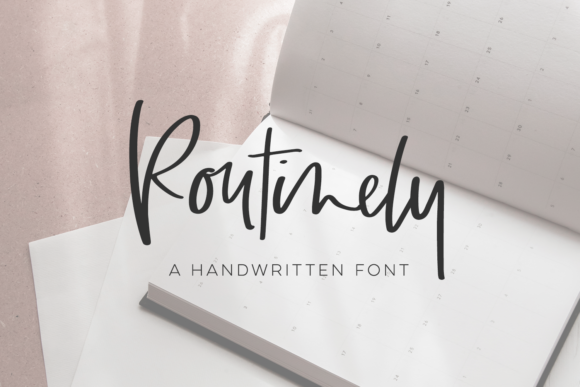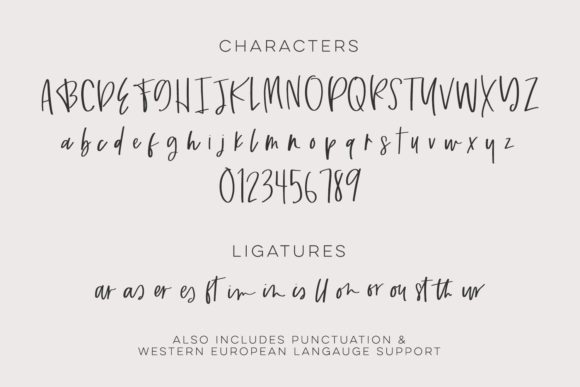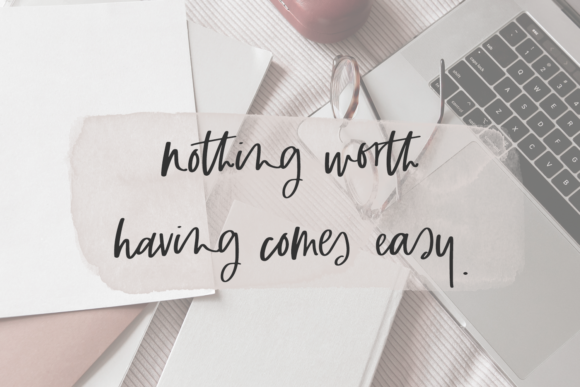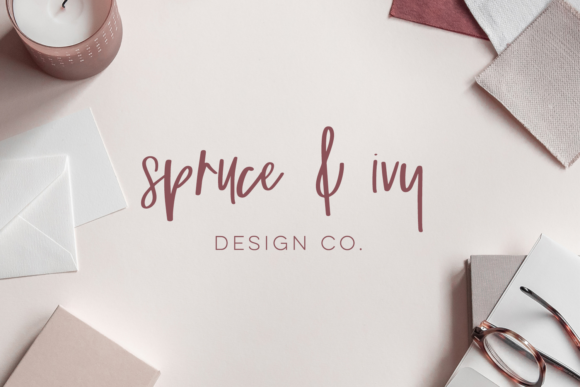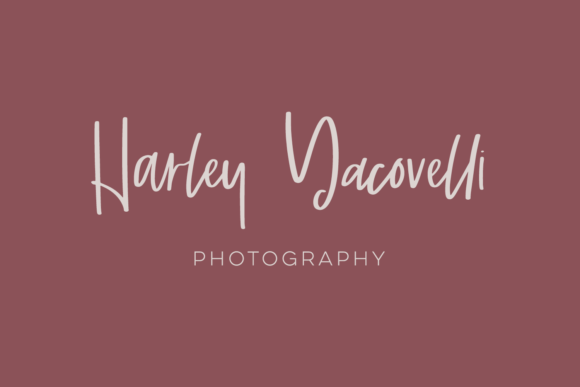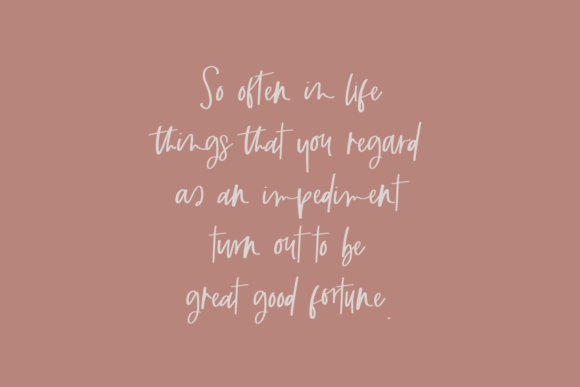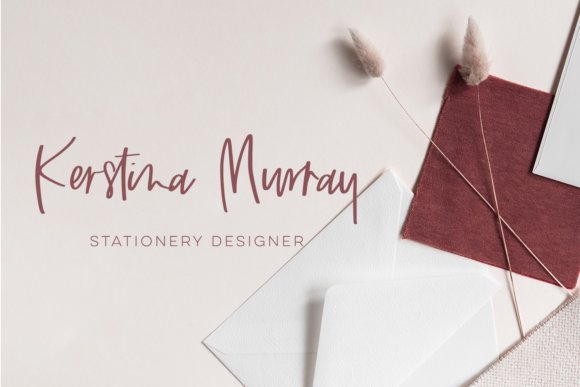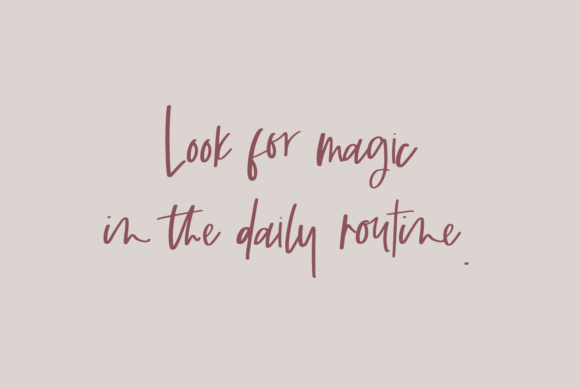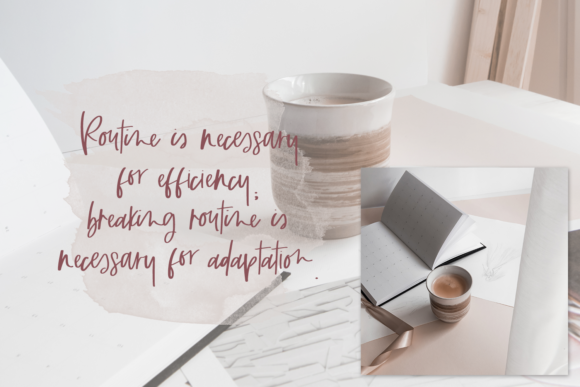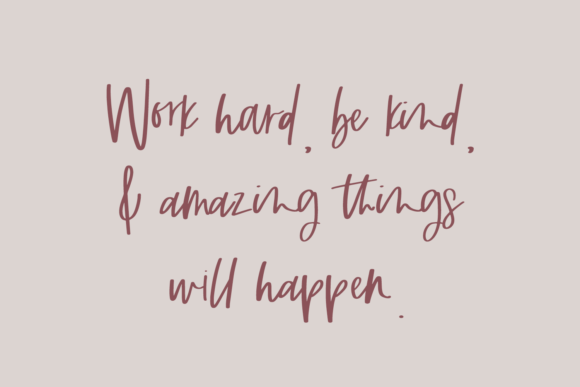
Routinely Script Font
About Routinely Script Font
Routinely Script is a handwritten signature style font. This stylish font features a messy, casual look.
Routinely Script is best for:
– logos + branding
– website design + website accents – think design blogs, travel blogs, fashion blogs, & more
– clean print design, like magazines + flyers
– header elements that need a handwritten touch
– quote graphics for social media